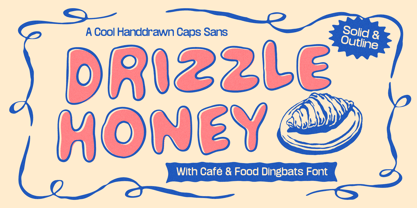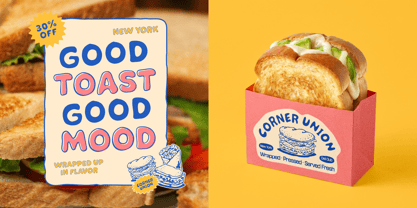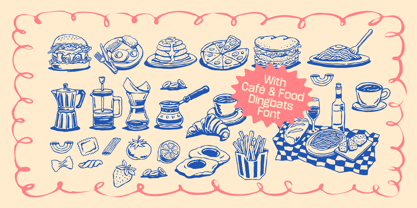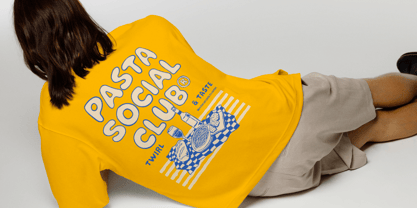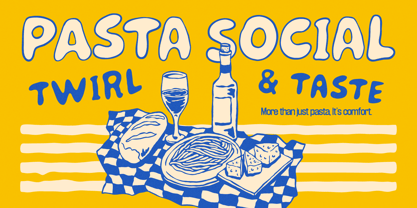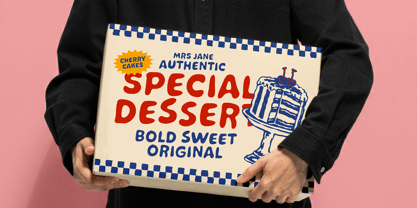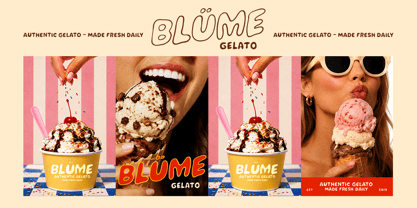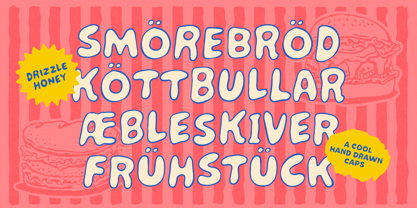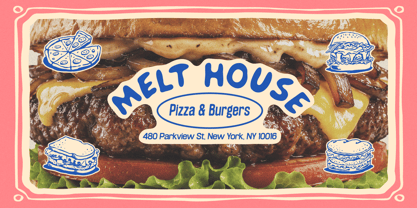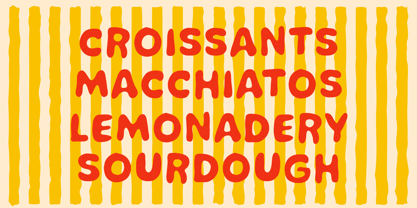
Drizzle Honey
by The Native Saint Club
The Drizzle Honey Font Family was designed by Bagas Ferdiansah, Septianto Nugroho and published by The Native Saint Club. Drizzle Honey contains 3 styles and family package options. More about this family
TNSC Drizzle Honey A cheerful hand-drawn display font made for café menus, food packaging, playful branding, and all things deliciously eye-catching :)
Inspired by cozy brunch spots, retro diner signage, sweet bakery shelves, and the fun little details you find in your favorite food corners, Drizzle Honey brings a warm and tasty personality into every design.
With its chunky bubbly letterforms and relaxed handmade feel, this font is perfect for posters, social media content, product packaging, logos, and branding projects that need a fun, friendly, and standout look.
This set includes 3 styles: Regular, Outline, and Dingbats giving you everything you need to mix playful lettering with charming café and food-inspired illustrations.